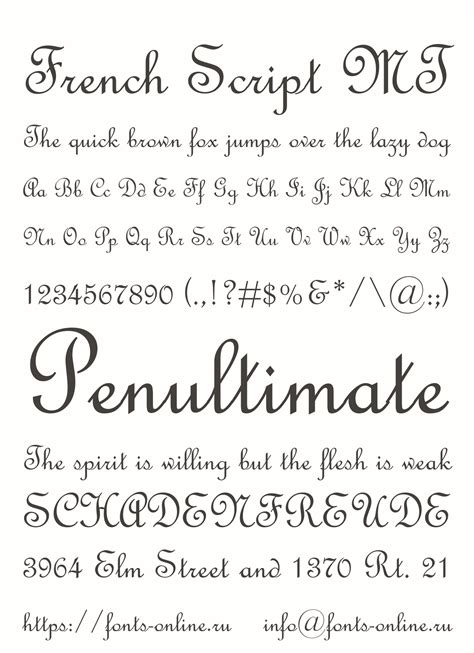
Unveiling the Alluring Charm of French Script Font: A Historical Insight
Are you tired of using the same boring font on your documents and designs? Do you want to add a touch of sophistication and elegance to your work? Look no further than the French script font!
Did you know that the French script font has been around since the 17th century? This timeless classic has stood the test of time and remains a favorite among designers, calligraphers, and typography enthusiasts.
With its flowing and curvaceous lines, the French script font exudes a sense of grace and beauty that is unmatched by other fonts. Its intricate details and fine lettering create a sense of intimacy and romance, making it perfect for wedding invitations, love letters, and romantic novels.
But don't be fooled by its delicate appearance – the French script font can also convey power and authority when used in a bold and assertive manner. Its versatility and adaptability make it a great choice for a wide range of projects and purposes.
So, what are you waiting for? Take your designs to the next level and add a touch of French elegance with the timeless allure of the French script font. Whether you're looking to create a vintage-inspired logo or a stunning wedding invitation, this font is the solution you've been searching for.
Explore the fascinating history of the French script font and discover how it has evolved over the years. Learn about the key features that make this font so unique and versatile, and get inspired by examples of its use in real-life projects.
Unveil the alluring charm of the French script font and experience the magic that it can bring to your designs. Don't miss out on this opportunity to elevate your work to new heights – read on and discover the beauty of the French script font today!
Unveiling the Alluring Charm of French Script Font: A Historical Insight
French script font is one of the most beautiful and alluring fonts that have been used in various areas, including advertising, fashion, and wedding invitations. The French script font has become popular throughout history, and its beauty has fascinated many people around the world. This article will provide a historical insight into the evolution of French script font and compare it with other writing styles.
Evolution of French Script Font
French script font evolved from cursive handwriting, which was developed in the medieval period. The Gothic Script was the origin of the French Script in Europe, which gained popularity in the Renaissance period. In France, the font evolved and gained popularity during the Baroque period, and the classic script was born. The beauty of the script caught the attention of printers who found it convenient for printing books.
Baroque Era
During the Baroque era, the French script font underwent significant changes, making it more distinct and ornamental. The font’s curves became more pronounced, and its lines thinner, making it look elegant while retaining its legibility. During this period, calligraphers embraced the font as it provided them with the freedom to express their creativity.
Neoclassical Period
In the Neoclassical period, French script font underwent a significant transformation. The font lost much of its ornamentation and was replaced by a simpler, cleaner font. The style became less curvy, and its lines were thicker, making it more readable, and it could be used for both print and handwriting.
Comparison with Other Fonts
Compared to other fonts, the French script font is unique, elegant, and incredibly versatile. Unlike other fonts like Arial, Times New Roman, and Calibri, French Script Font exudes class, and is capable of reflecting emotion and elegance. While most fonts have a uniform look, the French script font adds a personal touch that creates an emotional connection with the reader.
Comparison with Calligraphy
Calligraphy is another writing style that offers elegance and uniqueness in handwritten letters. However, it lacks versatility due to the limited number of styles available. French Script Font is more versatile as it can be used in a variety of settings, including print, digital, books, and even invitations.
Comparison with Serif Fonts
Serif Fonts such as Times New Roman are suitable for academic texts or newspapers due to their conservative nature. However, they lack the elegance and emotion that French Script Font offers. Serif Fonts are also not recommended for commercial designs or wedding invitations.
The Allure of French Script
The allure of French script lies in its fluid strokes, intricate curves, and sharp angles. The font exudes elegance and sophistication, making it perfect for any design that requires an emotional connection with the reader/viewer. It's a perfect choice for weddings, greeting cards, menus, and invitations.
French script font originated from the Renaissance era in Italy, where handwriting became an art form. It then spread to France and became popular during the Baroque period. French script font was often used for official documents, manuscripts, and personal correspondence.
Yes, French script font is still used today in various design projects, such as wedding invitations, branding, and packaging. It adds a touch of elegance and sophistication to any design.